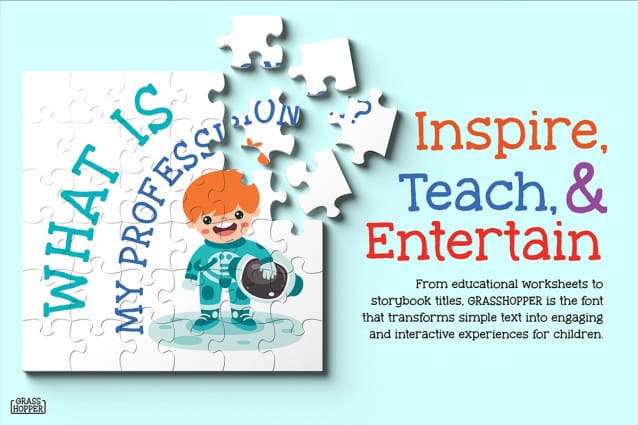
Grasshopper Playful Font
Grasshopper Playful Font is a fun and playful font designed to bring joy to any children’s design project. Its charming and whimsical style is perfect for children’s books, cartoons, toys, and any creative project that celebrates the cuteness of childhood.
Every letter in Grasshopper radiates a lively and cheerful vibe that captures kids’ attention and adds a burst of fun to your work.
If you’re looking for a font filled with color and imagination for children’s designs, Grasshopper Playful is the perfect choice!